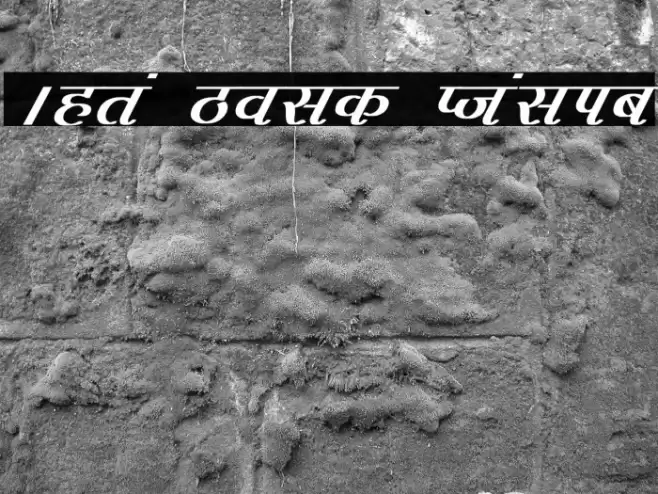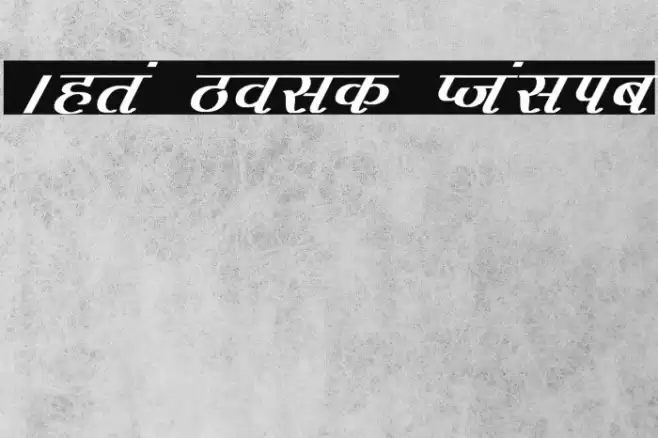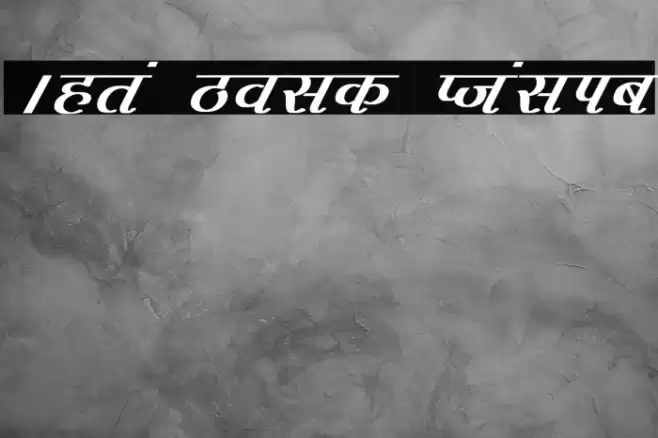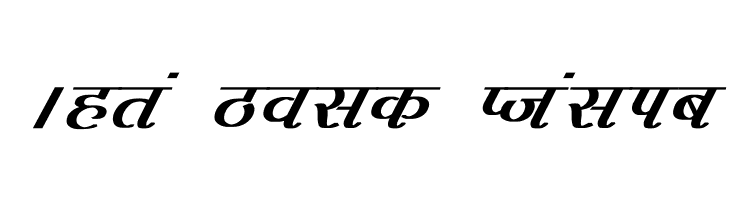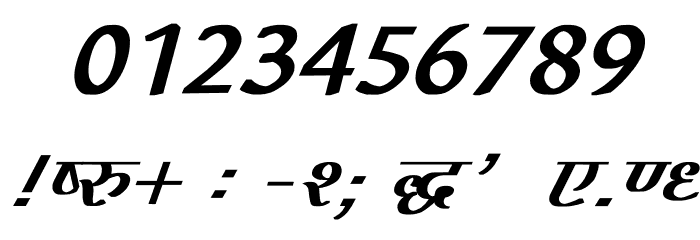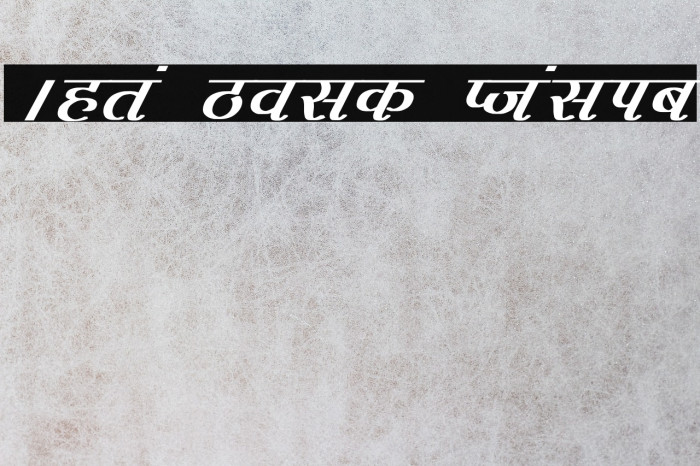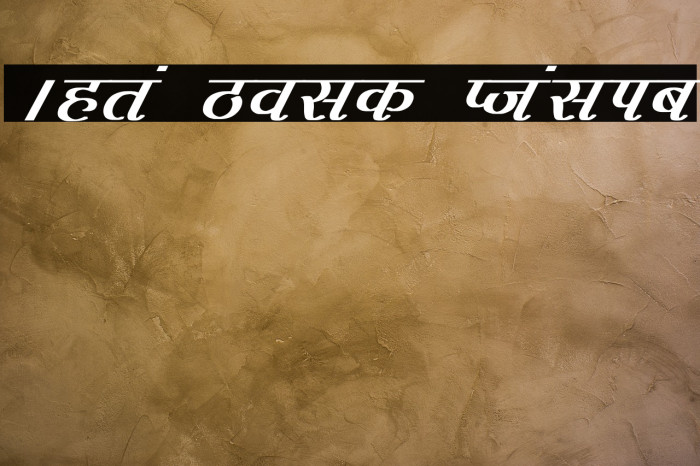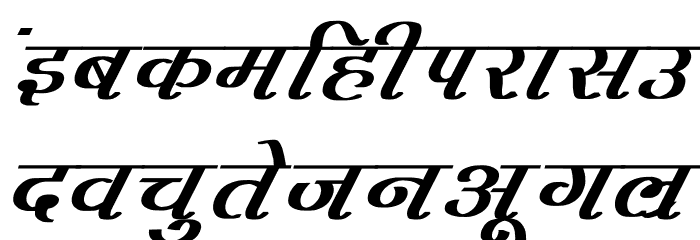
Agra Bold Italic Font
Agra Bold Italic Description
This font exhibits a bold and italicized style with a distinct flair, characterized by its elegant curves and dynamic slant. The strokes are thick, providing a strong presence, while the italic angle adds a sense of motion and sophistication. The characters are well-defined, with a consistent weight throughout, ensuring readability. This font is particularly suited for creating impactful headlines or titles, where a bold statement is desired. The numerals and special characters maintain the same stylistic features, ensuring uniformity across different types of content.
A bold, italicized font with elegant curves and strong presence from Uncategorized fonts.
- Proposed Projects: Ideal for branding, advertising, and editorial design where a bold and stylish impact is needed.